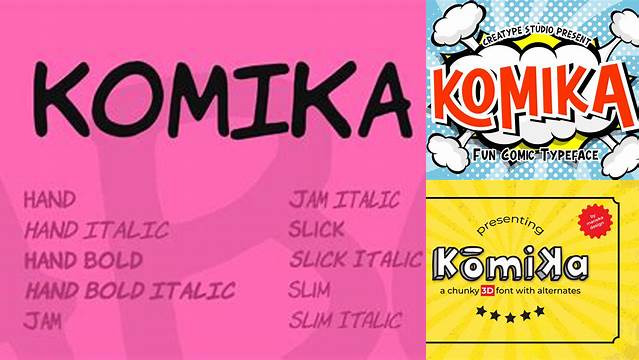
Komika Font: A Deep Dive Into 1001Fonts & HTML Integration
Let's talk about fonts, specifically the Komika font! If you're a designer or just someone who loves cool typography, you've probably stumbled upon this quirky and fun typeface. In this article, we're going to explore everything about the Komika font, where to find it on 1001Fonts, and how to use it in your HTML projects. Buckle up, guys, it's going to be a font-tastic ride!
What Makes Komika Font So Special?
The Komika font stands out because of its playful and cartoonish design. It's perfect for projects that need a touch of whimsy and fun. Think comic books, children's books, posters, and even website headings. Its rounded edges and slightly irregular shapes give it a friendly and approachable feel, making it a favorite among designers looking to add some personality to their work.
History and Origins of Komika Font
The history of the Komika font is quite interesting. While the exact origins might vary depending on the specific version (like Komika Axis, for example), the general idea behind Komika is to create a legible yet playful font. It's often inspired by comic book lettering, hence the name. Knowing the history helps you appreciate the font's design choices and use it appropriately in your projects. You wouldn't use it for a serious legal document, would you?
Common Uses and Applications of Komika Font
Komika font shines in various applications. It's a go-to choice for comic strips, greeting cards, and party invitations. Web designers also use it to create engaging headings and interactive elements. Because of its readability, it works well in educational materials for kids, making learning a bit more fun. Its versatility allows it to be used across different media, both print and digital, so experiment and see where it fits best!